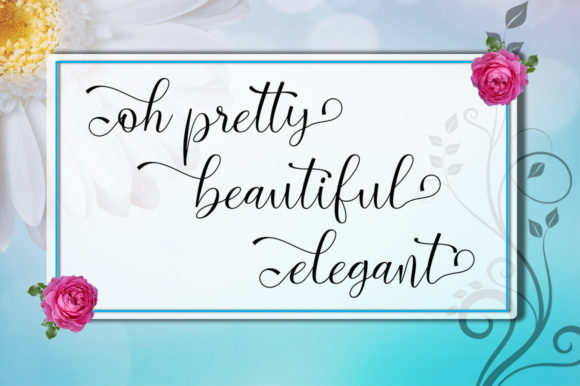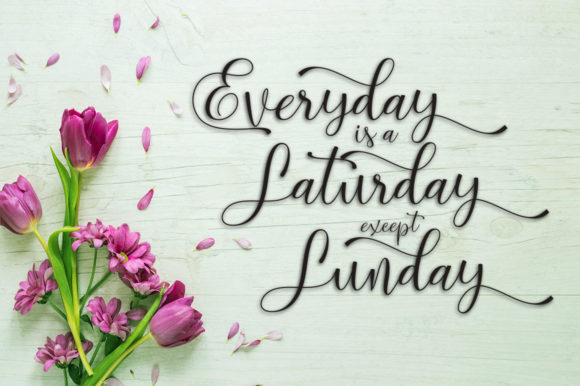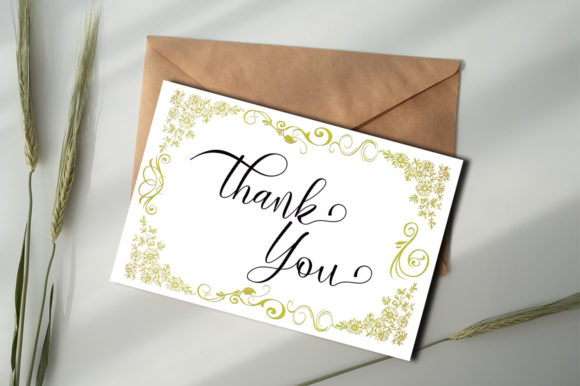
Introduction to Amorita Font
Amorita is a new modern calligraphic script font.
With extra curves & loops, Amorita is guaranteed to make your text stand out – perfect for logos, printed quotes, invitations, cards, product packaging, headers, and whatever your imagination holds .
Key Features of Amorita Font
Why Choose Amorita Font?
Amorita Font offers exceptional quality and versatility, making it a valuable addition to your design toolkit. Whether you’re creating for personal projects or commercial use, Amorita Font delivers professional results.